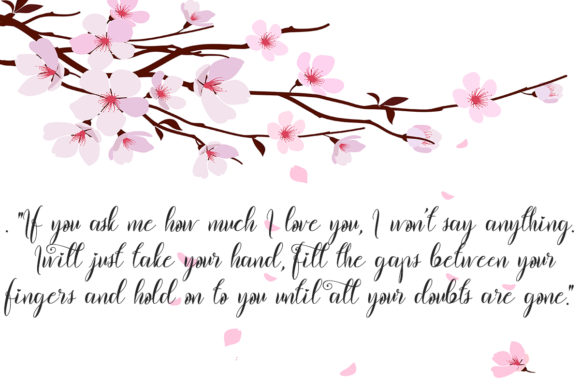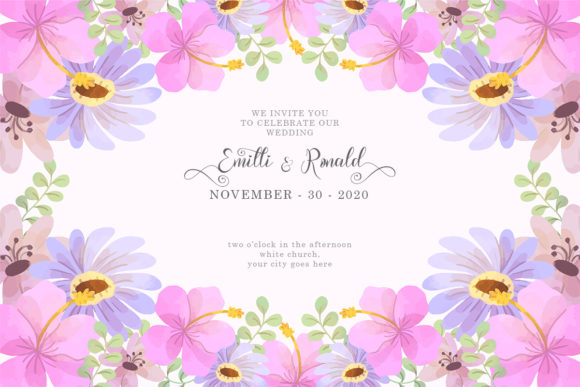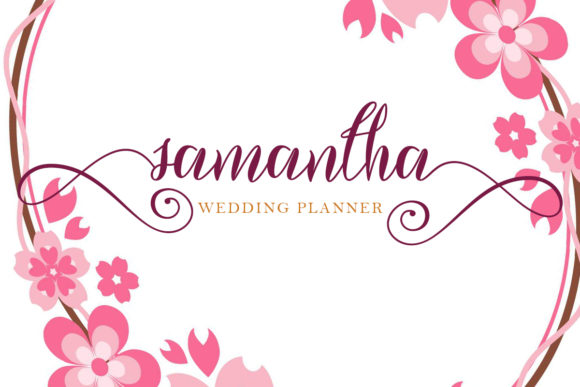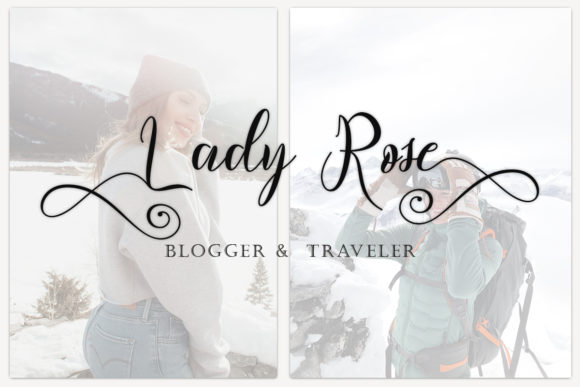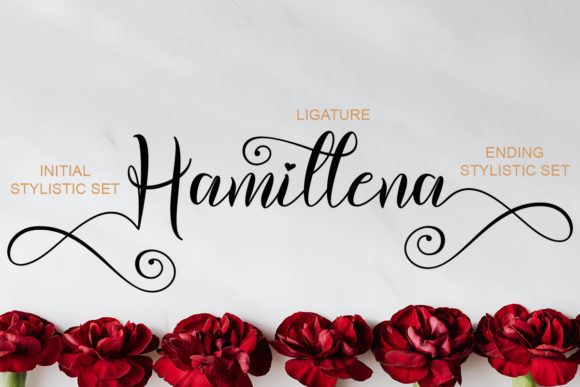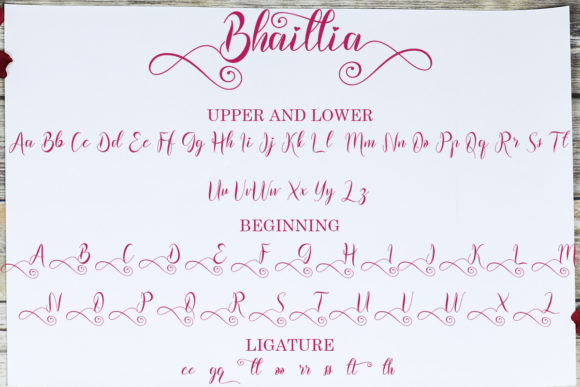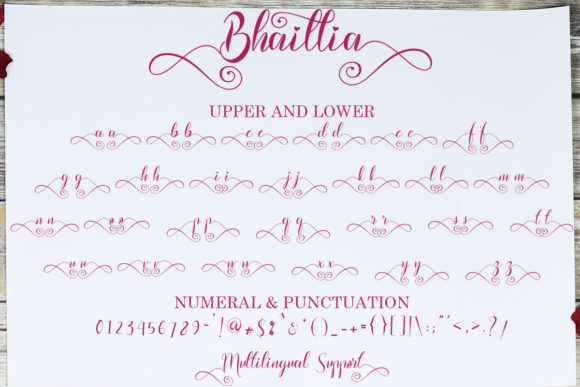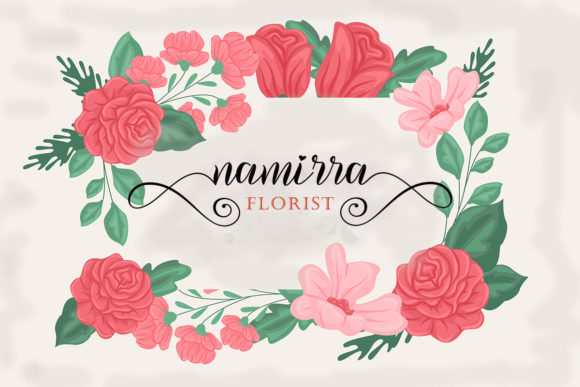
Bhaillia Font
About Bhaillia Font
Introducing Bhaillia: The Incredibly Elegant and Flowing Handwritten Font
Embrace the elegance and flowing beauty of Bhaillia, a handwritten font that exudes sophistication and charm. With its stunning alternates, varying baseline, and smooth lines, Bhaillia is perfect for a wide range of design projects. Whether you’re creating wedding invitations, thank you cards, quotes, greeting cards, logos, business cards, or any other design that needs a touch of handwritten elegance, Bhaillia will undoubtedly look stunning, making your creations stand out with a touch of exquisite allure.
Bhaillia’s elegant and flowing appeal brings a sense of grace and refinement to your designs. Its varying baseline and smooth lines make your text exude a delightful and sophisticated energy.
As a font that features gorgeous glyphs and stunning alternates, Bhaillia becomes the go-to choice for projects that demand a touch of versatility and beauty. Its flowing beauty ensures that your work resonates with an elegant and captivating look.
Embrace the sophistication of Bhaillia as you embark on your creative journey. Let it be the font that elevates your designs, adding a sense of charm and elegance in every project.
As you explore the possibilities of Bhaillia, you’ll find it to be a font that enhances your designs with ease. Its elegant and flowing handwritten beauty transforms your work, ensuring that your creations leave a lasting impression.
So, let Bhaillia be the font that adds a touch of grace and refinement to your designs. Embrace its stunning alternates and smooth lines, and watch as your wedding invitations, thank you cards, logos, and more look absolutely stunning with a sense of exquisite allure. With Bhaillia as your go-to font, your designs will resonate with elegance and charm, captivating your audience and leaving a lasting impression. Embrace the flowing beauty of Bhaillia and create designs that are truly breathtaking and unforgettable!